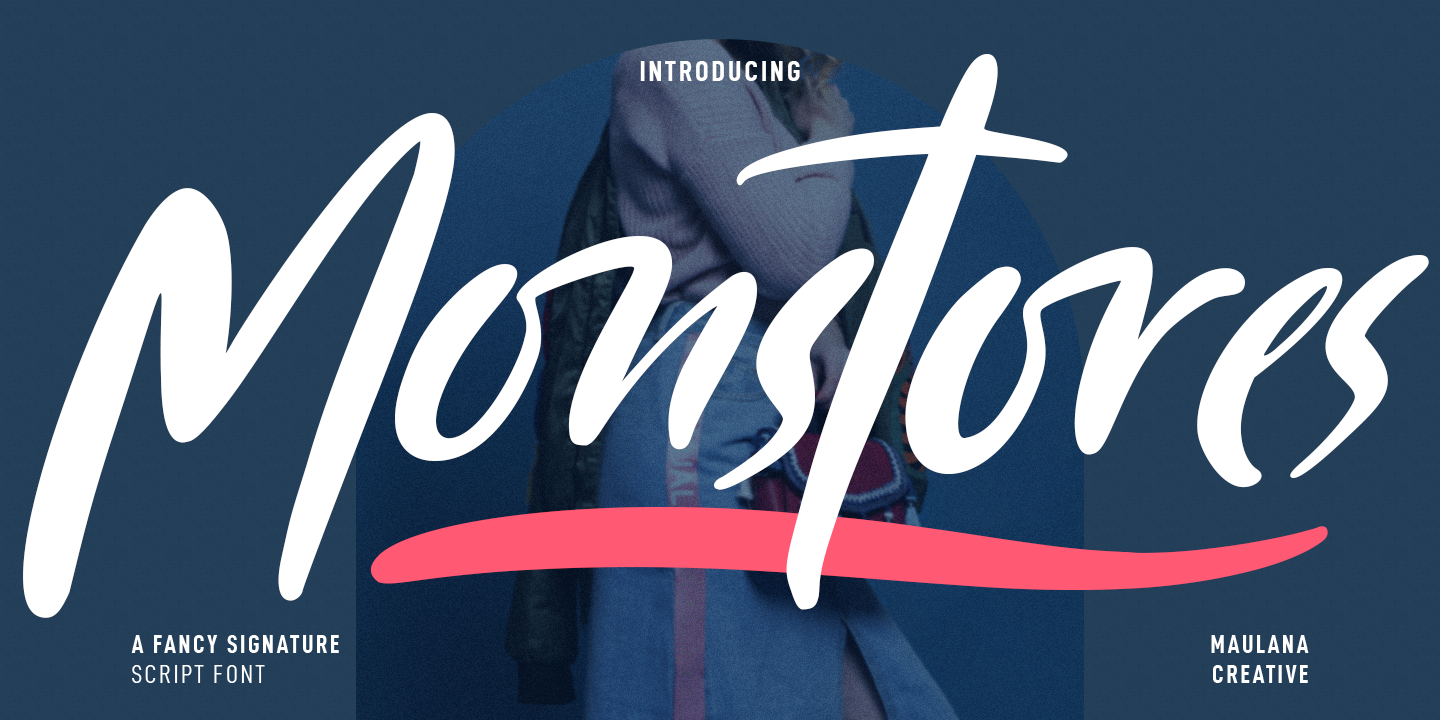
Usage Examples: Monstores Font is ideal for logo design, social media graphics, movie titles, book covers, and stylish branding projects.
Why It’s Exciting: Its fancy, signature-style script with slanted felt-tip strokes and playful ligatures adds a chic, handwritten charm to any design.
Font Families: Monstores Font includes Regular and Swash variants, offering versatility for creative and elegant design applications.
Elevate your projects with Monstores Font Free Download! Designed by Gilang Maulana of Maulana Creative, this signature script font features a slanted, felt-tip style with ligatures, swashes, and alternates, perfect for creating stunning logos, social media posts, or editorial designs. Supporting over 100 languages, Monstores Font brings a modern, handwritten flair to both short and long text. Download Monstores Font Free Download now to test its stylish appeal, but secure a commercial license for professional use. With Regular and Swash styles, this font adapts seamlessly to various creative needs, ensuring readability and sophistication. Boost your brand’s visibility with this elegant typeface today